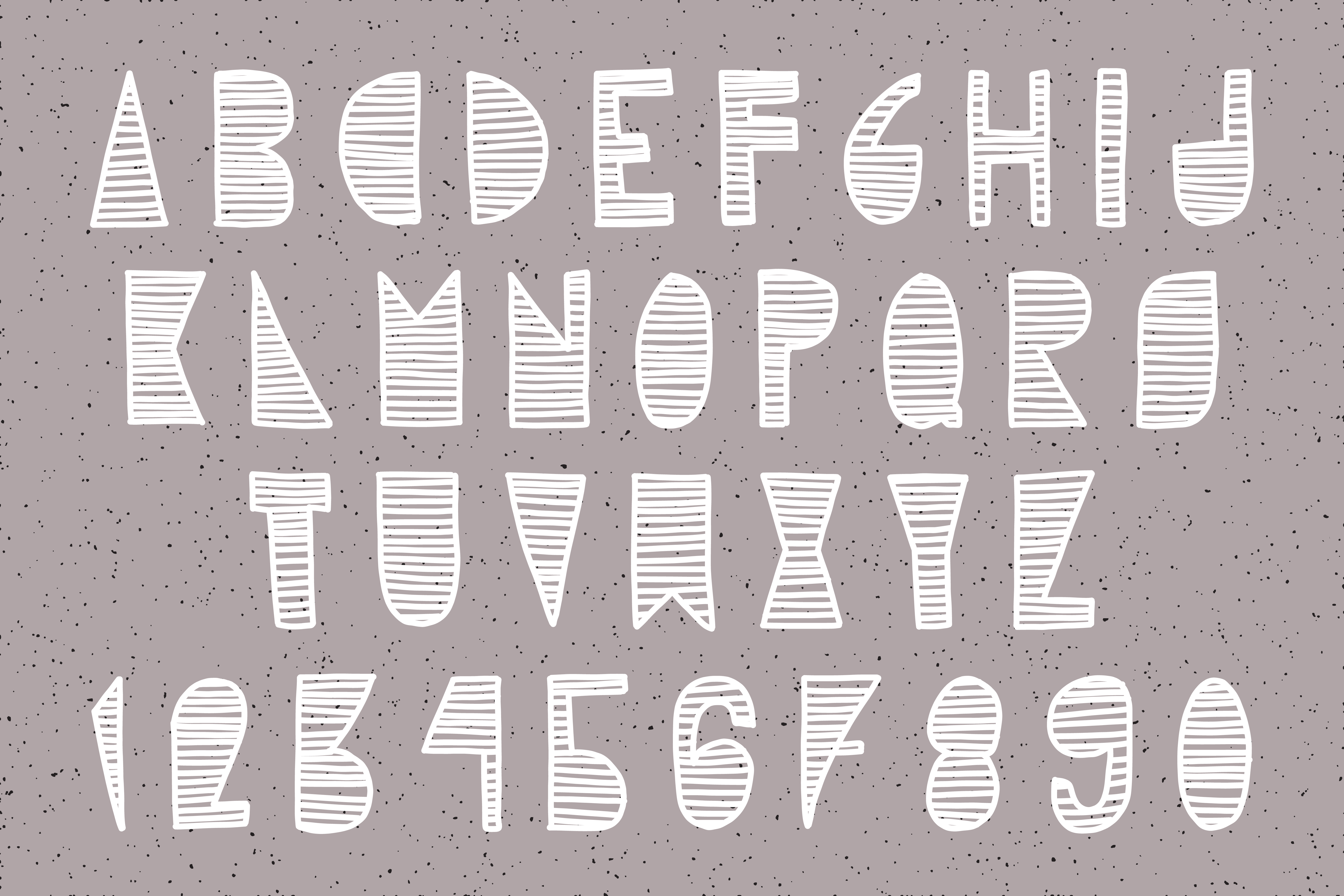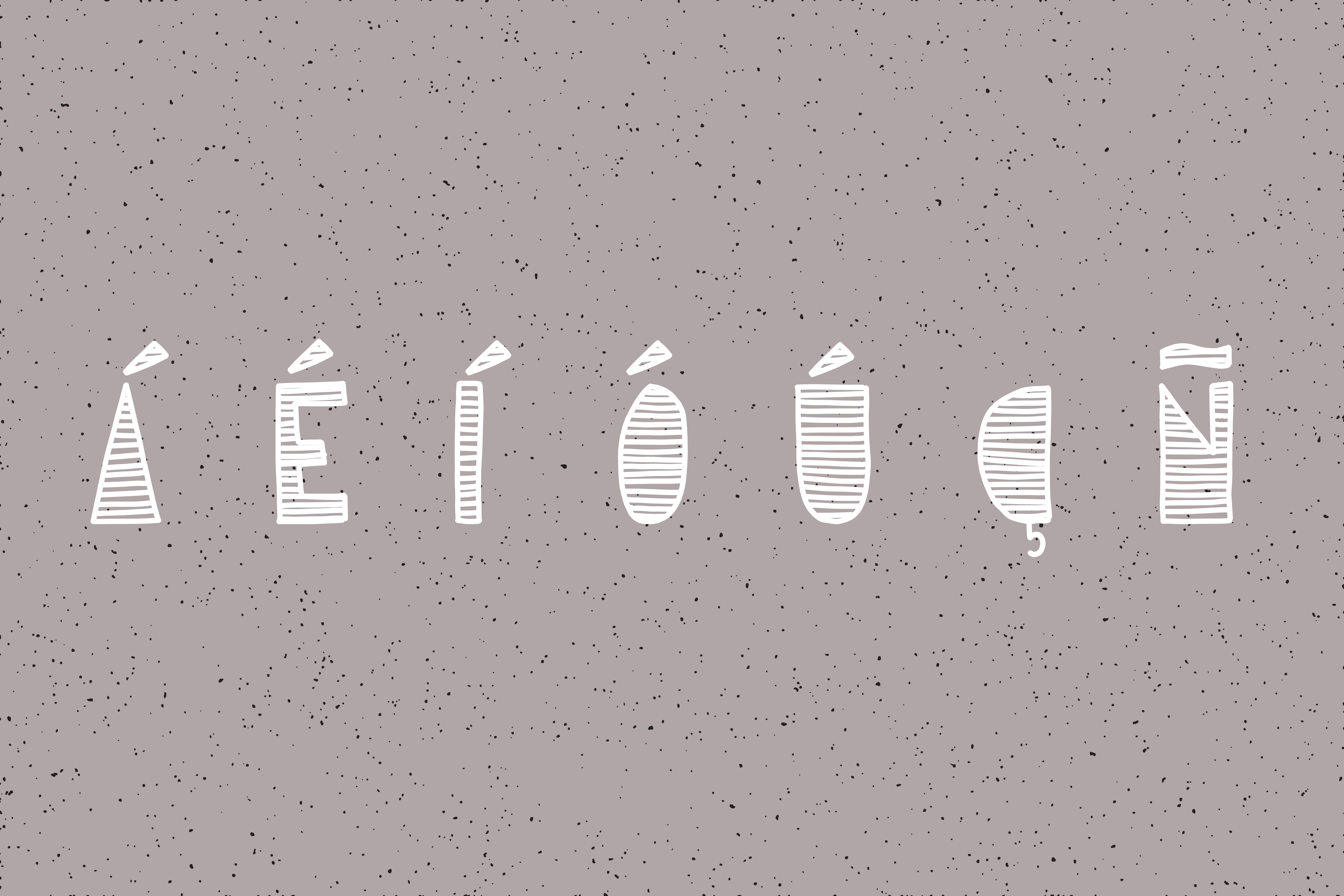
Introduction to Karlie Elizabeth Font
Karlie Elizabeth is a completely decorative and fun font, perfectly suitable for eye catching typographic styles.
Use Karlie Elizabeth when you want to add a youthful edge to your designs or creative projects .
Key Features of Karlie Elizabeth Font